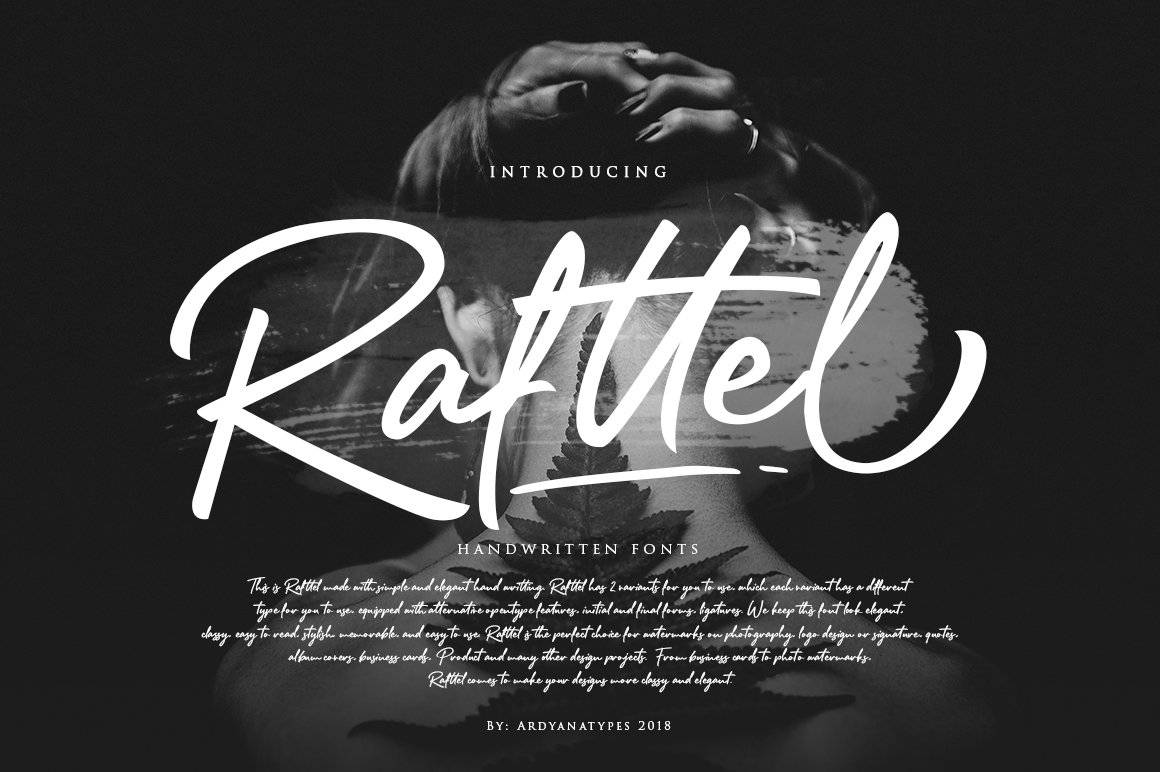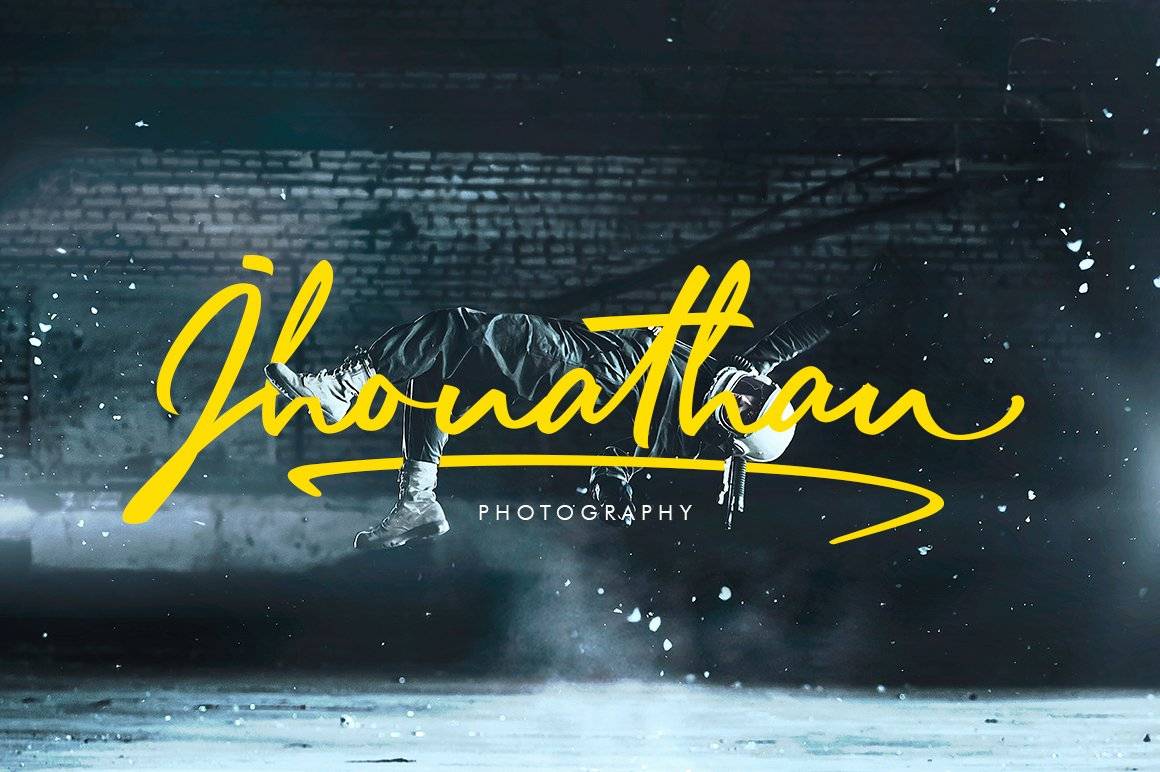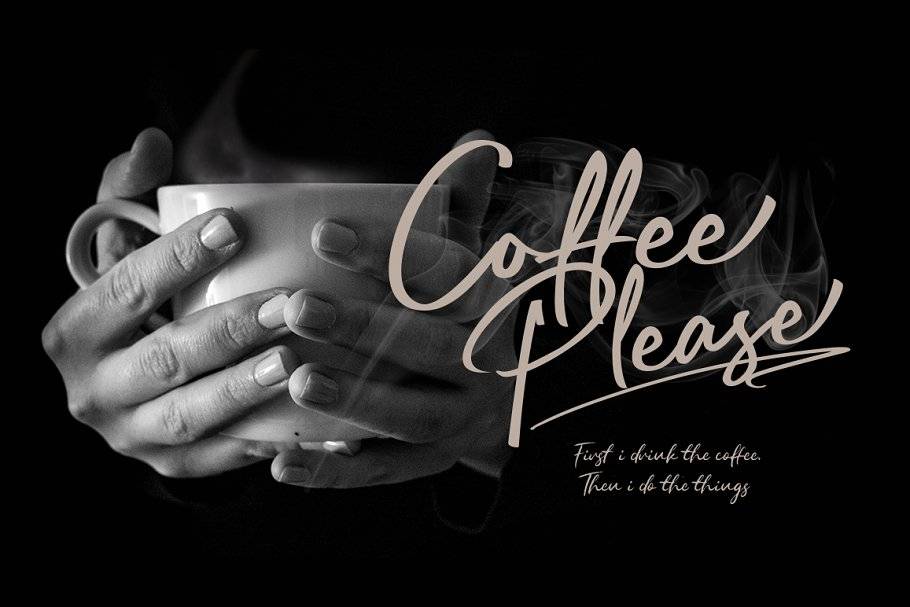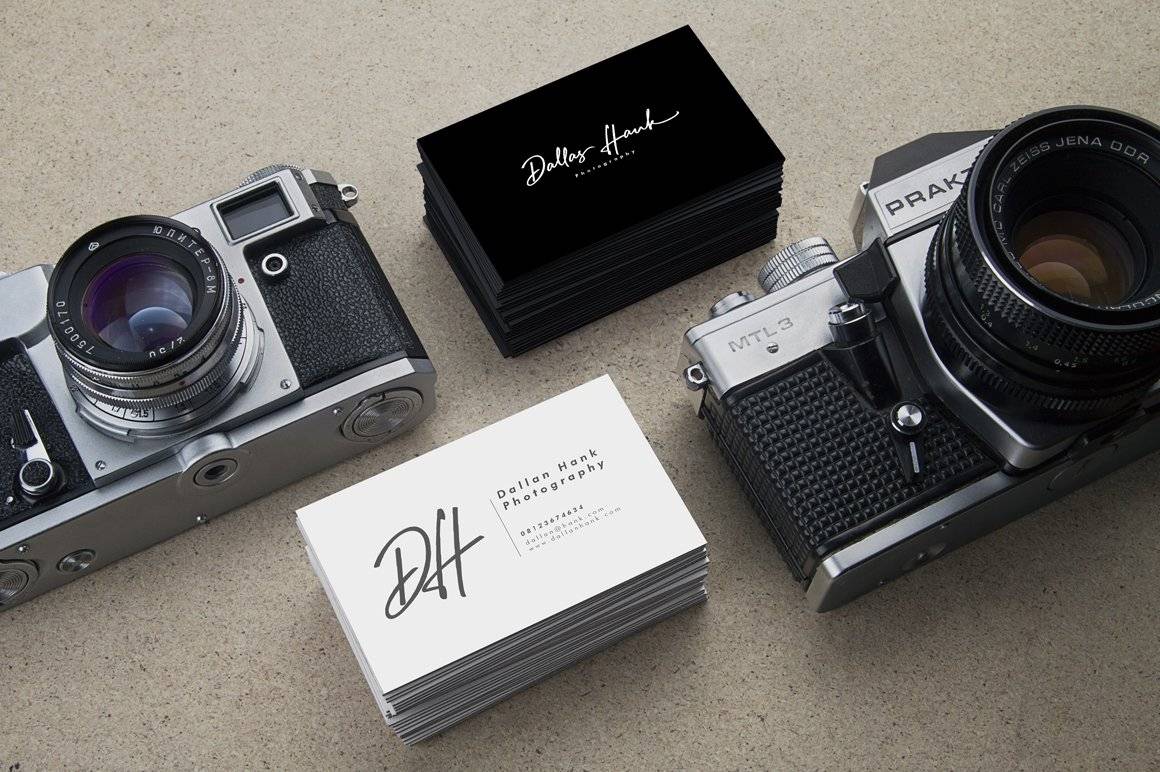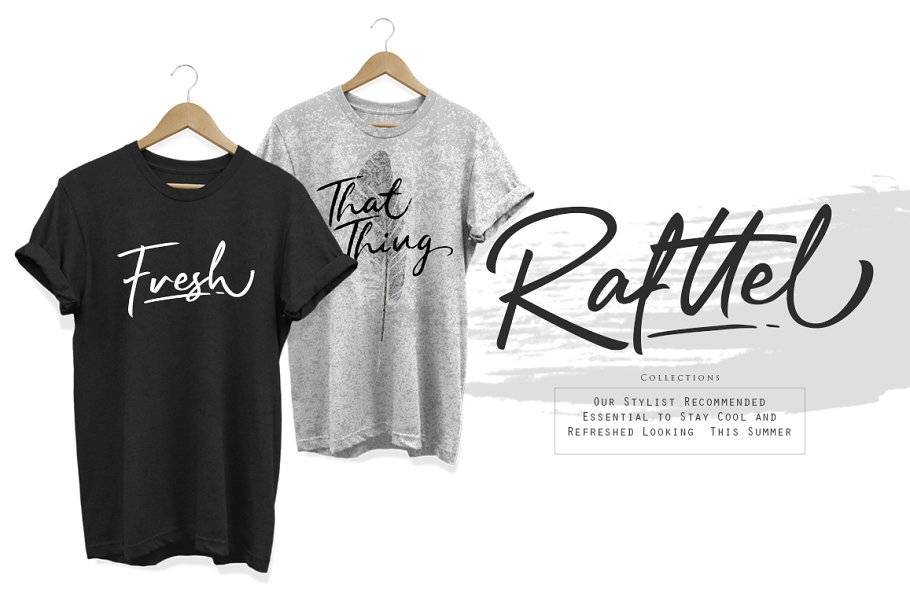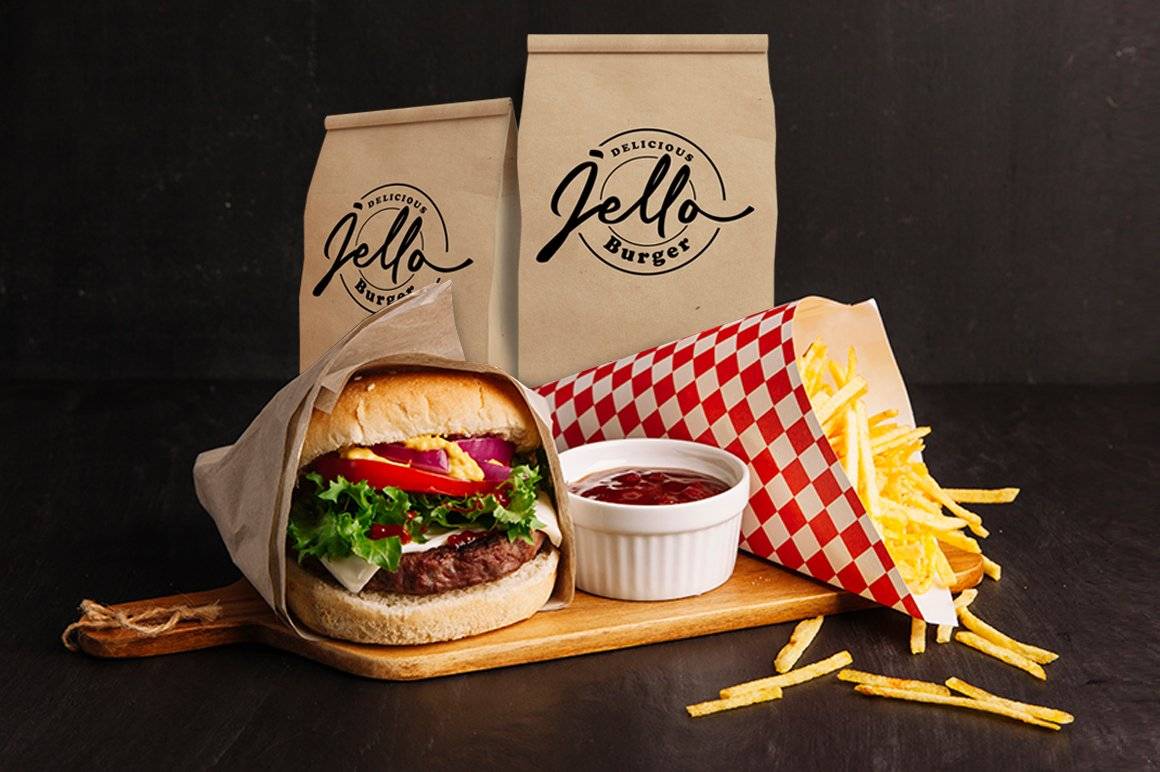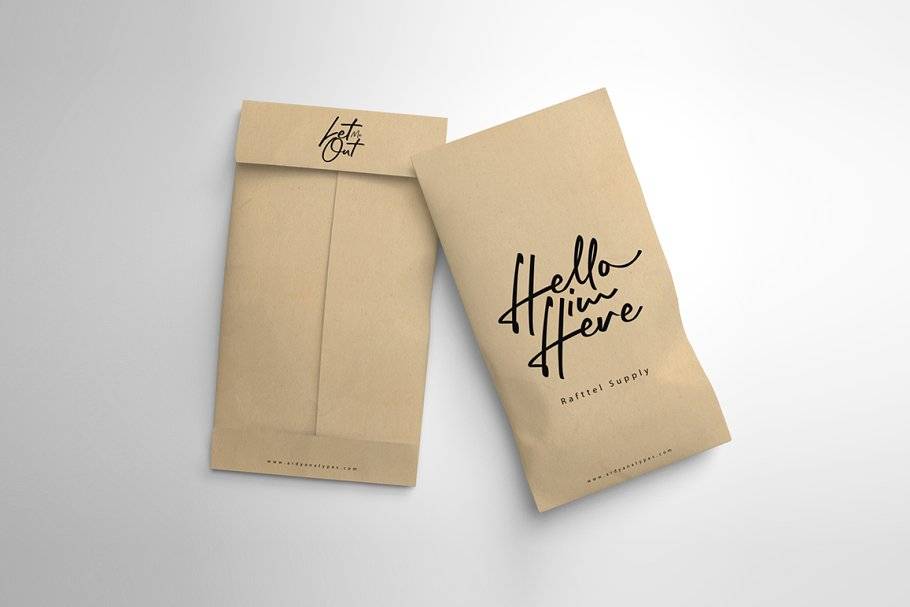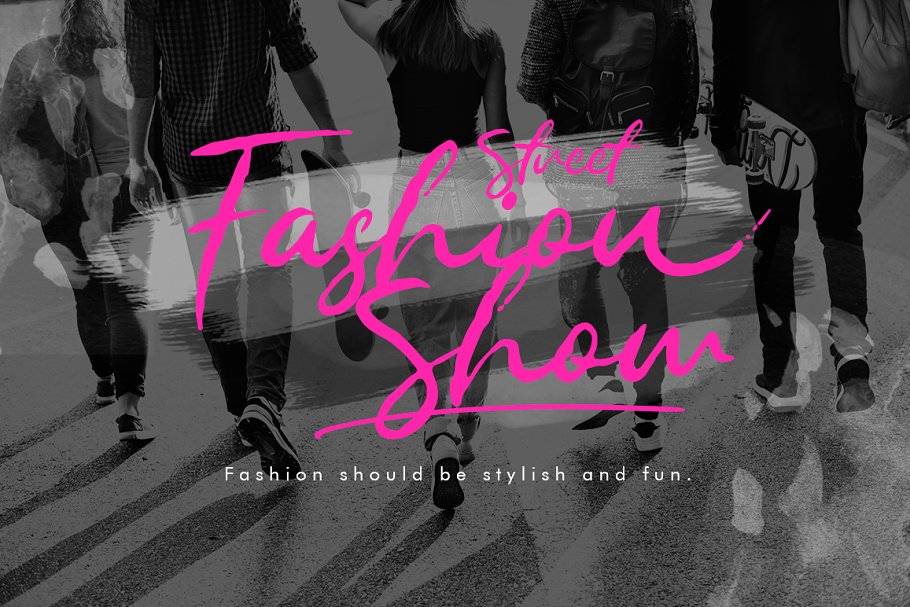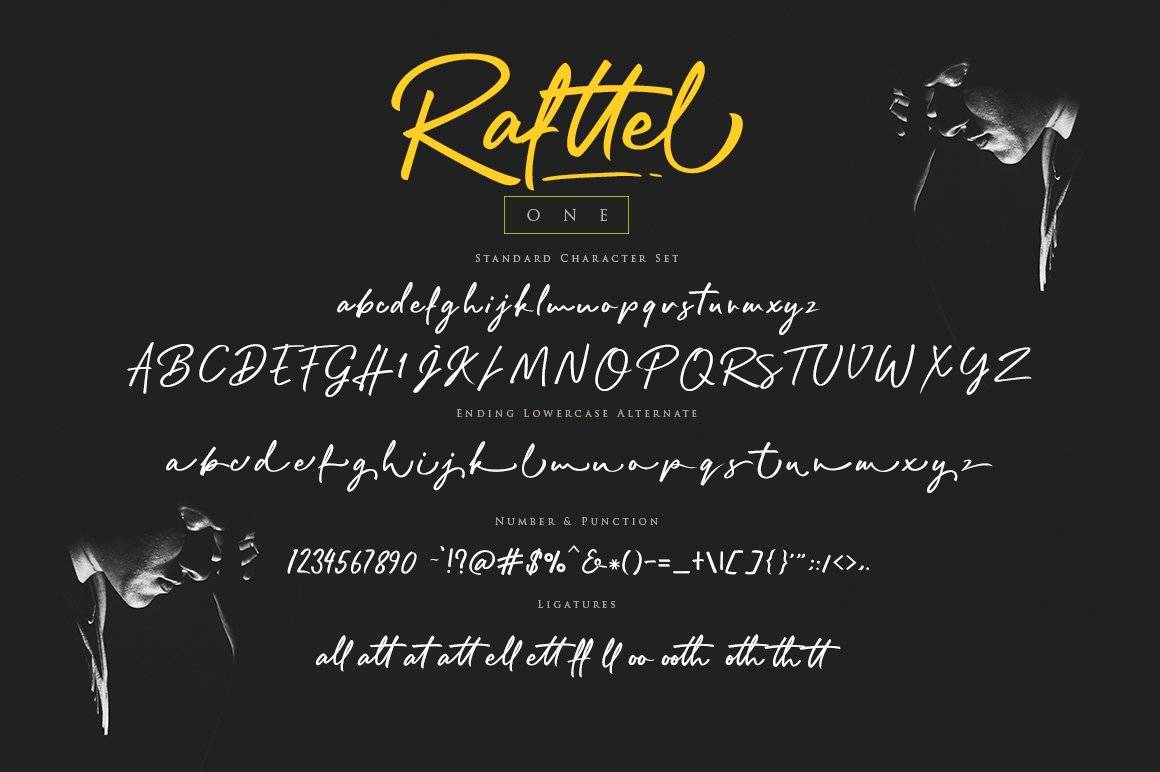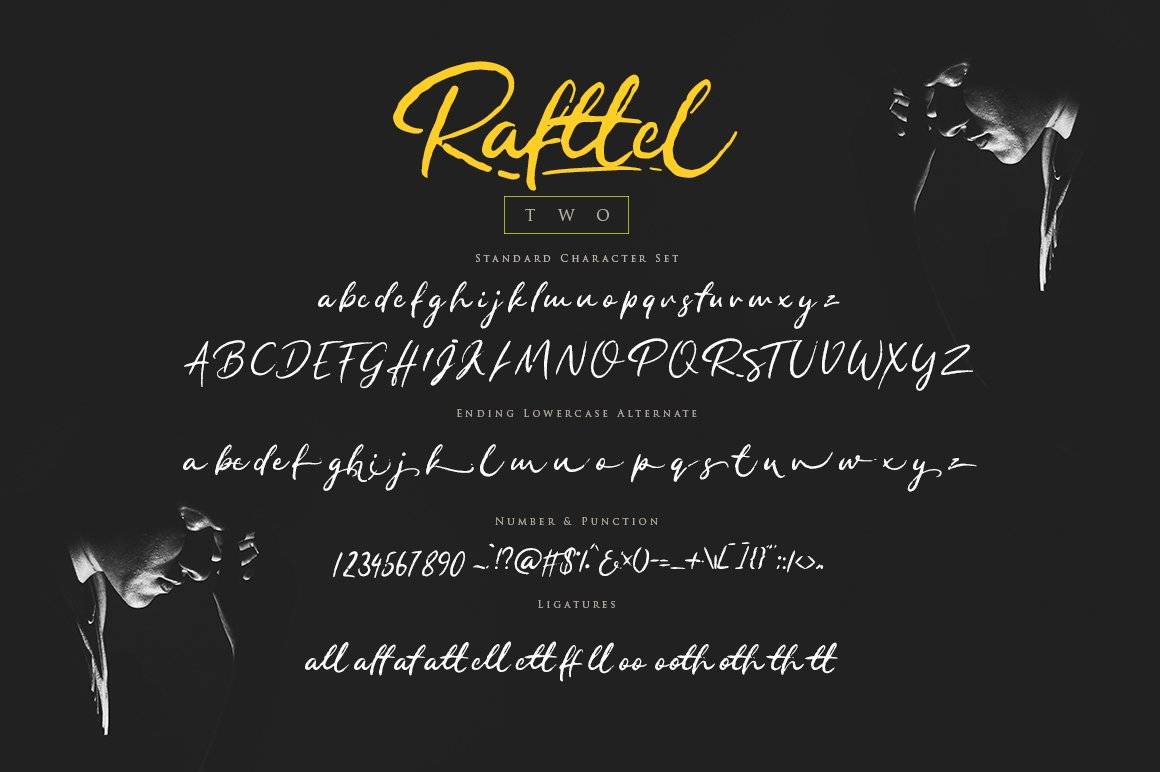
Rafftel Handlettering Script is a lively and elegant script font that mimics natural, fluid handwriting with a casual yet refined touch. Featuring slender, slightly slanted letterforms with varied stroke widths, it brings a personal and approachable feel, making it perfect for creative branding, invitations, and lifestyle designs that seek warmth and authenticity. This font works wonderfully in both headlines and short text where a stylish handwritten look enhances the message.
Rafftel Handlettering Script
About Rafftel Handlettering Script
| Font family | Rafftel Handlettering Script |
| Release date | 2018-10-06 |
| Designer | Ardyanatypes |